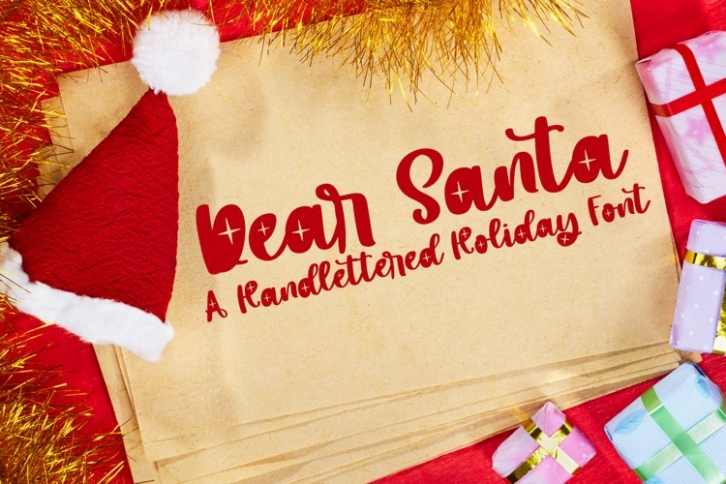
Dear Santa is a trendy and unique font with an authentic style. It was designed by plusstore and it's a great choice for creative people who need such a font. It was released on October 1, 2021 and the file size is 1.26 MB. Dear Santa will add an organic vibe to any design idea!